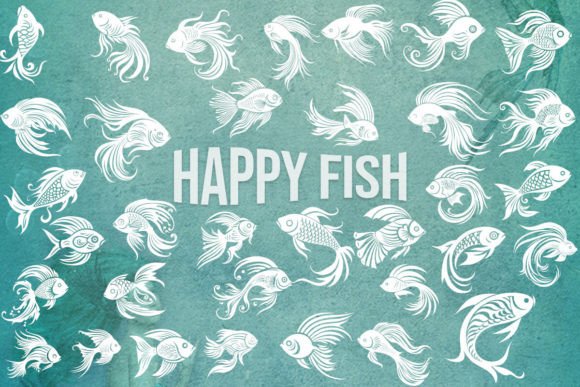
Introducing the Happy Fish Font - the ultimate choice for designers seeking the best fonts for illustrations! Created by the talented MOMAT THIRTYONE, this remarkable dingbats font is not just a collection of letters, but a doorway to a world of playful imagination.
With Happy Fish Font, you'll dive into a realm of aquatic joy, where typography meets the cheerful spirit of underwater companions. Each of the 26 lively letters has been meticulously crafted to embody the vibrant charm and whimsy that will instantly captivate your audience.
Imagine your designs coming to life as letters and numbers swim together in a sea of vibrant colors. Happy Fish Font brings a touch of magic to any project, whether you're designing a children's book, creating eye-catching logos, or adding a dash of whimsy to your social media posts.
But why settle for ordinary fonts when you can make a splash with Happy Fish? This font goes beyond the ordinary, infusing your designs with a sense of wonder and delight. Let your creativity soar as you explore the endless possibilities this font has to offer.
Whether you're a professional designer or a passionate hobbyist, Happy Fish Font will elevate your creations to new heights. Its versatility knows no bounds, allowing you to effortlessly express your unique style and stand out from the crowd.